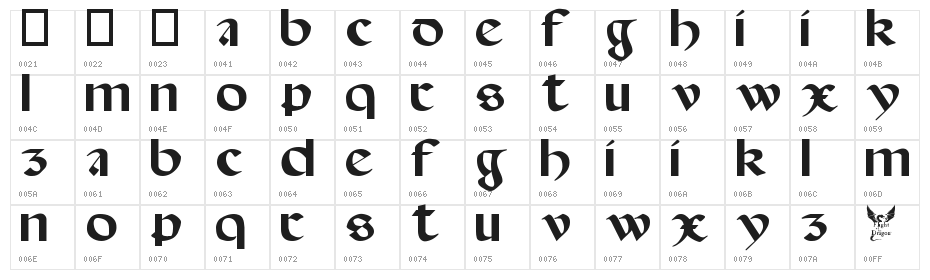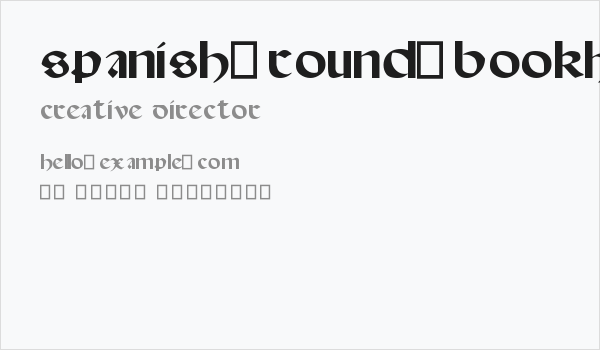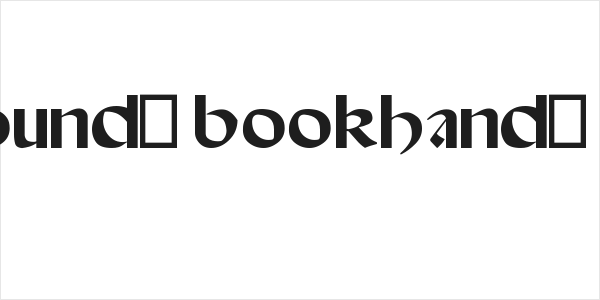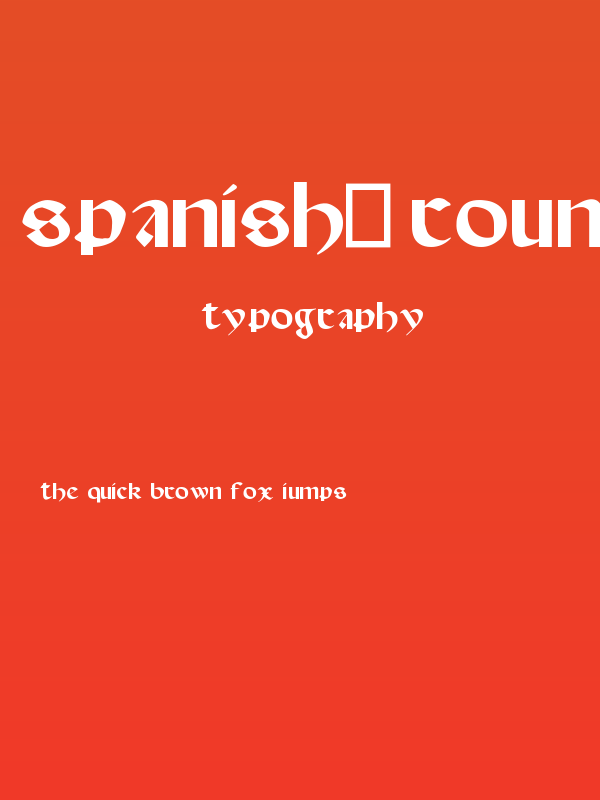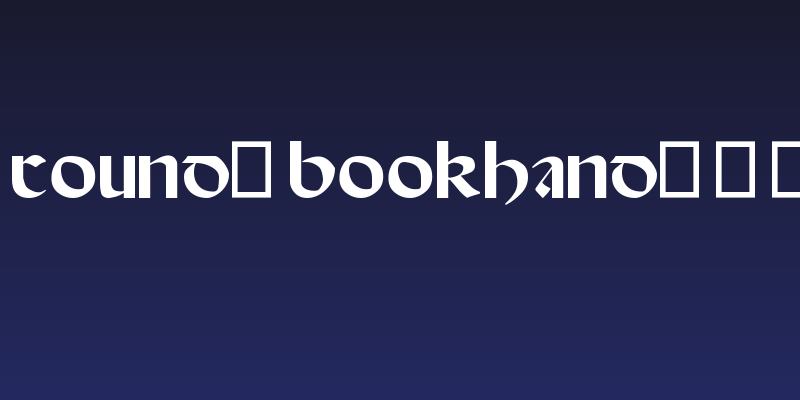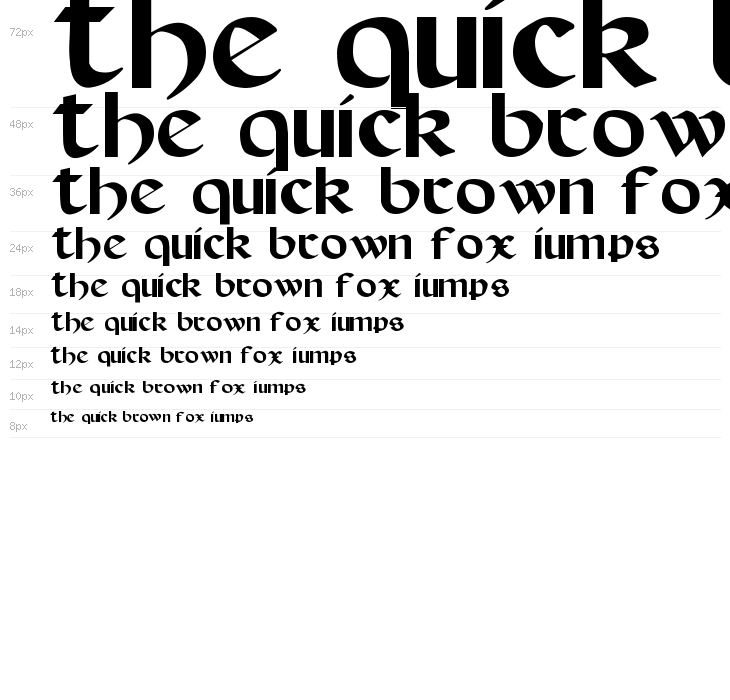
Spanish-Round-Bookhand--16th-c- Font
Spanish-Round-Bookhand--16th-c- Description
This font embodies the elegance and formality of a classic blackletter style, reminiscent of the 16th-century Spanish round bookhand. The characters are bold and angular, with a distinct sharpness in the serifs and strokes that evoke a sense of historical gravitas. The uppercase and lowercase letters maintain a consistent style, with a notable emphasis on the vertical strokes, giving the font a strong and authoritative presence. The spacing between characters is tight, enhancing the compact and cohesive appearance of the text. This font is ideal for projects that require a touch of historical authenticity and sophistication.